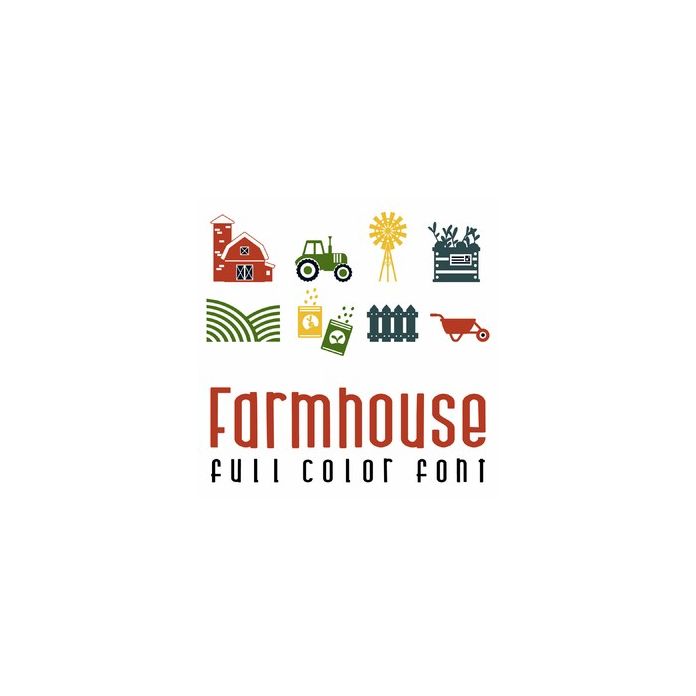
This adorable full color doodlebat font features fun simple farm designs. Perfect for cards, crafts, gifts, decor, scrap book pages, planner stickers and more!